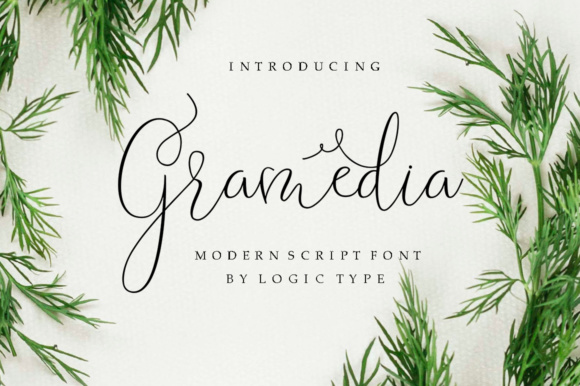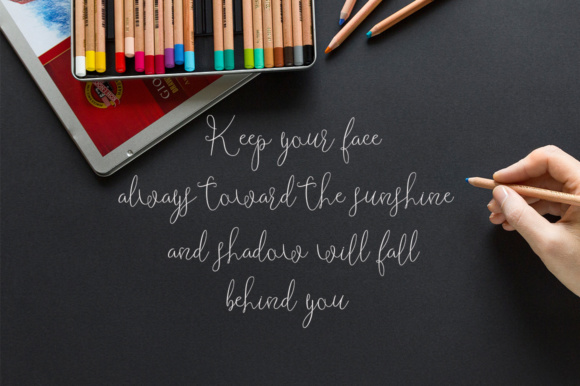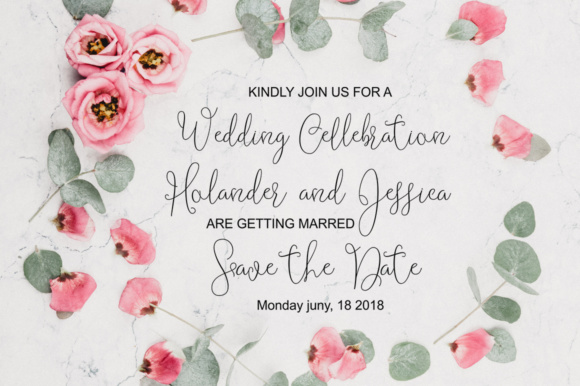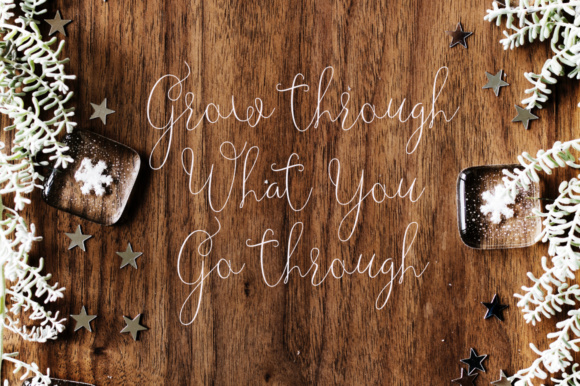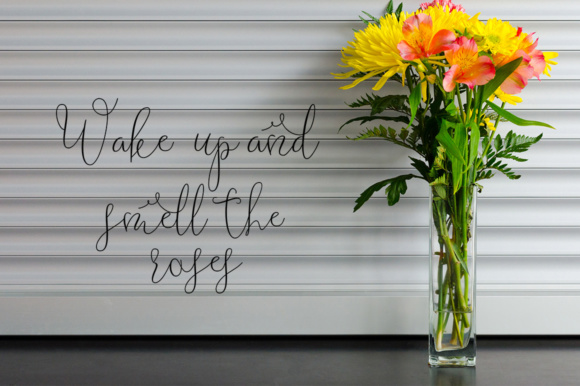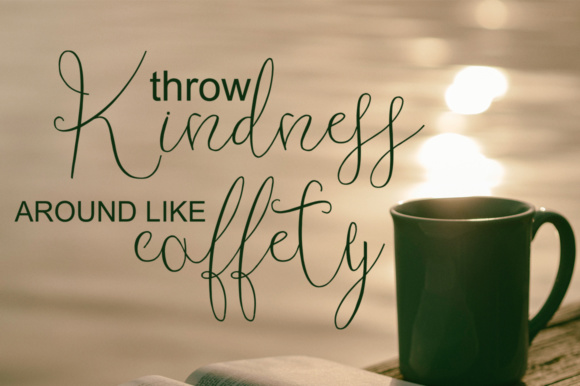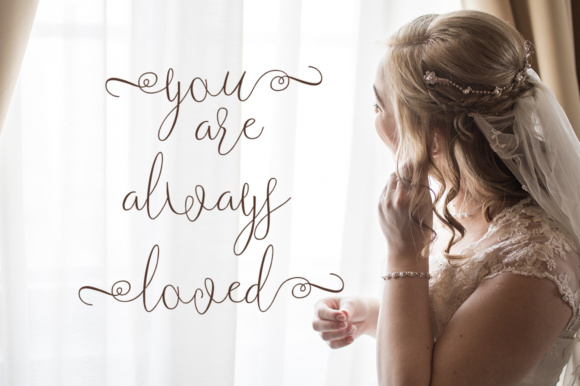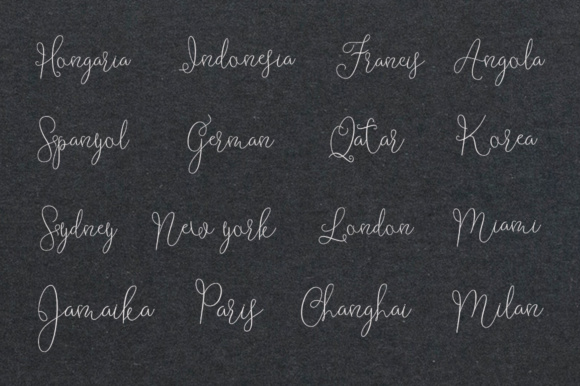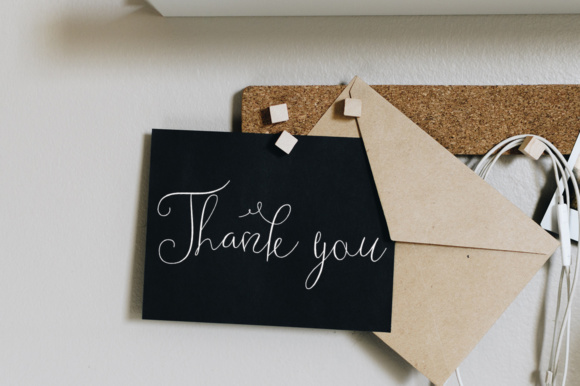
Gramedia Font
About Gramedia Font
Gramedia is a beautiful handwritten font. It has an elegant feel which gives your design a decorative impression of classic love.